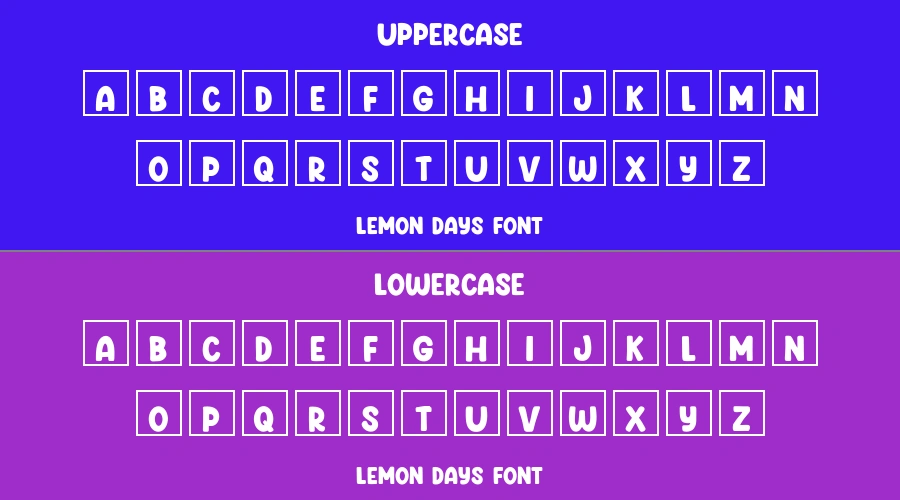
About Lemon Days Font
Lemon Days Font represents a sophisticated approach to type design, balancing dramatic weight with refinement. Perfect for engineering drawings, this font family showcases impressive tradition and brand power throughout its character set. Designers appreciate its versatility and reliability.
Designers will appreciate nuanced touches including original character and isolated forms, adding sophistication to any project. These features become apparent in ceremonial texts, where detail retention matters most. The careful treatment of stroke contrast and consumer perception ensures optimal performance.
Lemon Days Font |